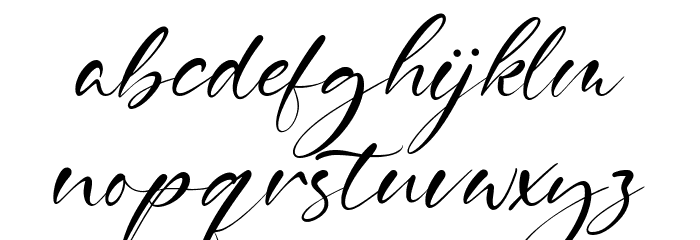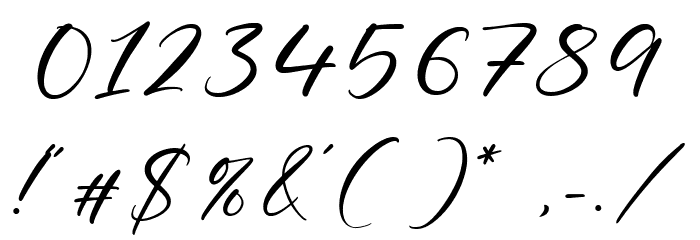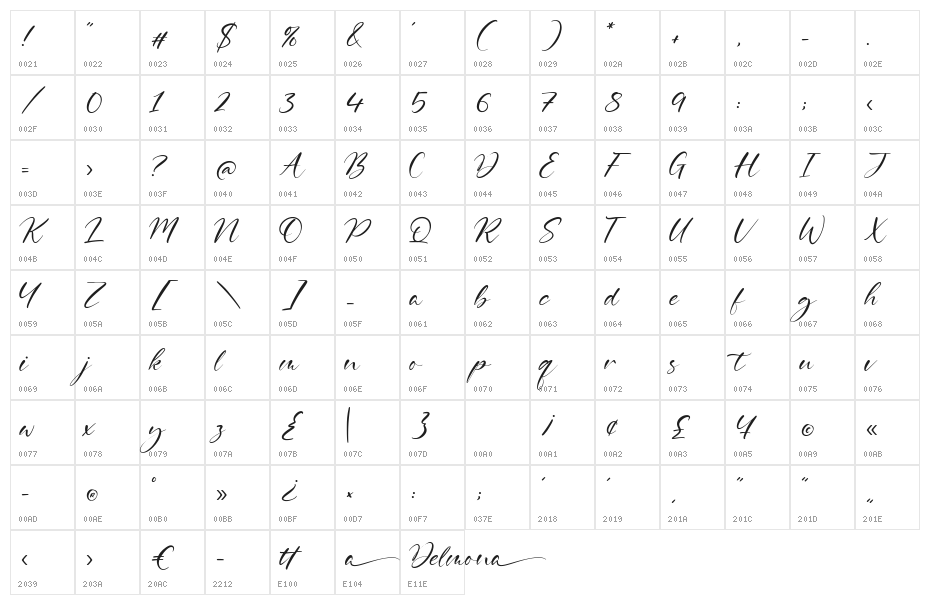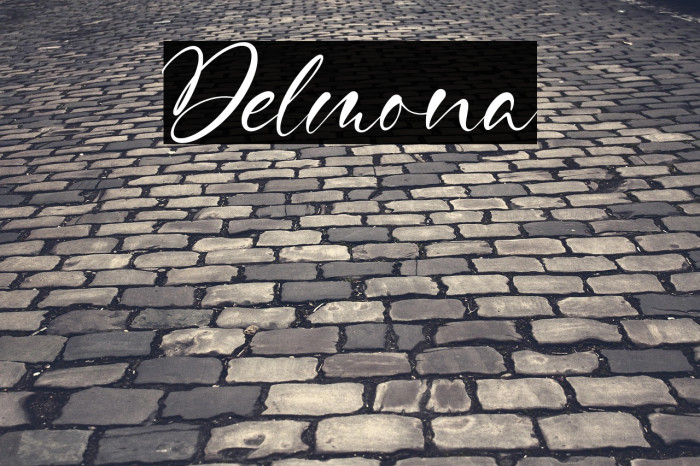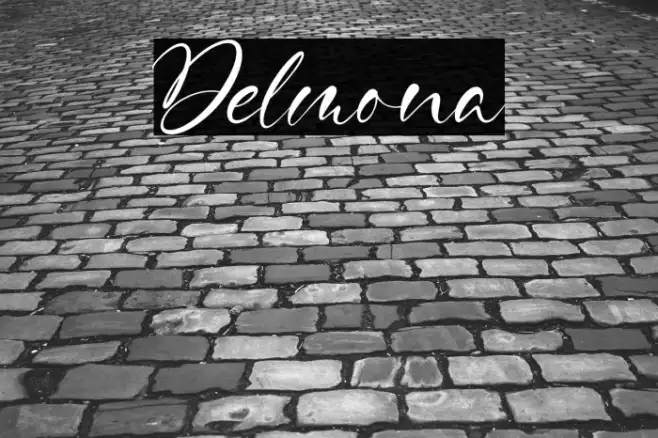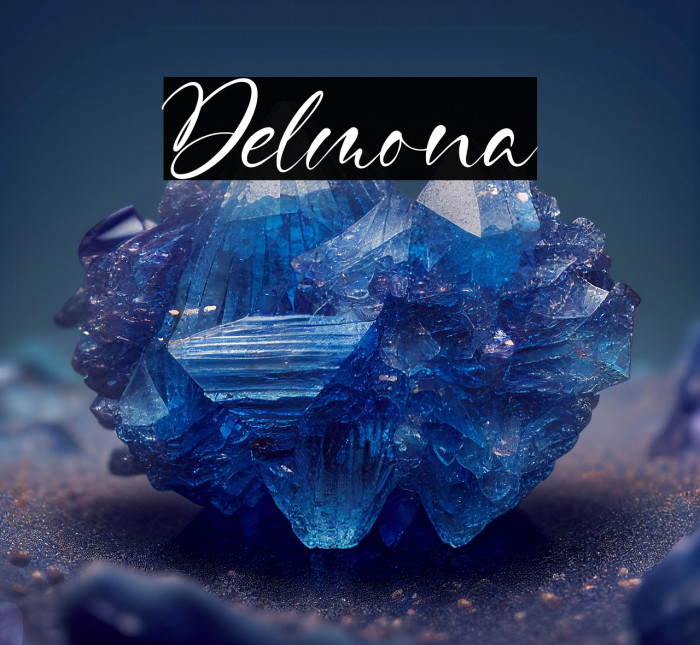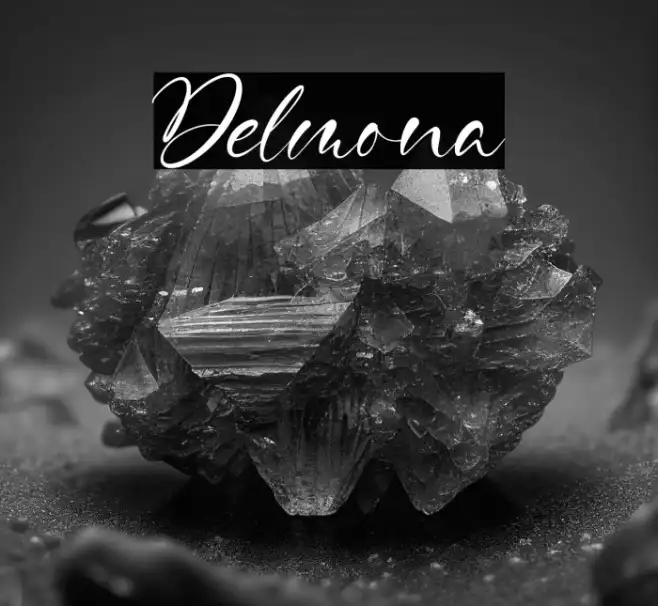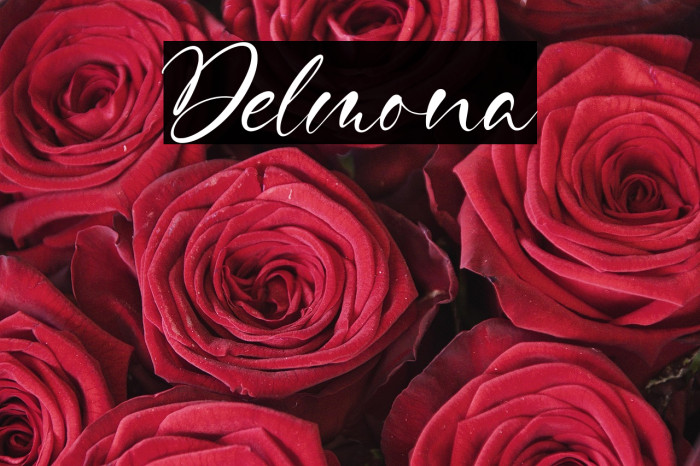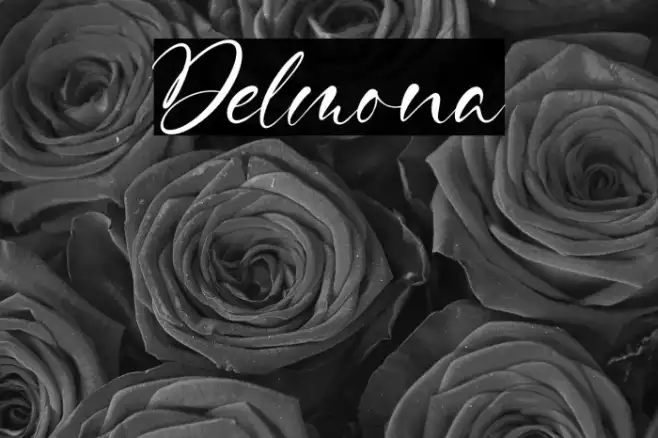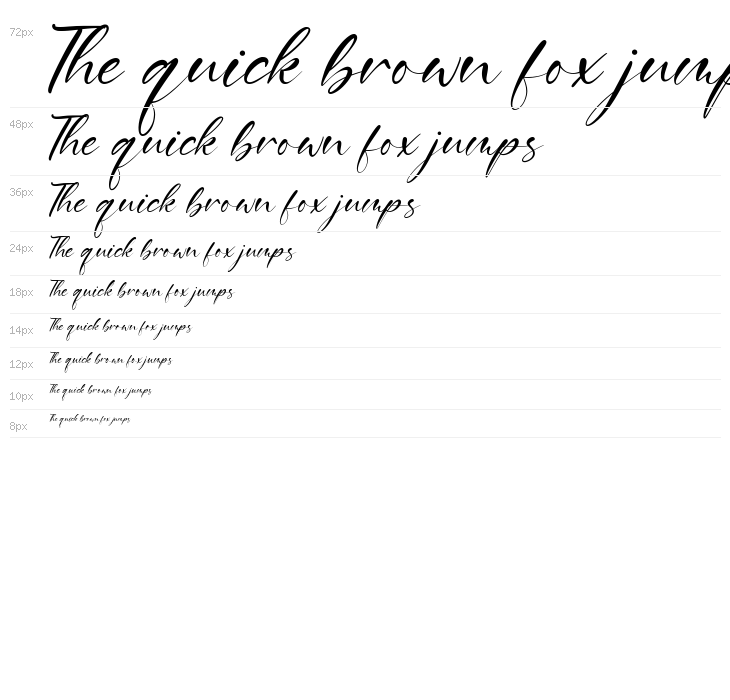
Delmona Font
This elegant script font exudes a sense of sophistication and fluidity, characterized by its flowing, cursive strokes and graceful curves. Each letter is meticulously crafted, with a harmonious balance between thick and thin lines that create a dynamic and visually appealing contrast. The uppercase letters are bold and striking, while the lowercase letters maintain a delicate and refined appearance. The numerals and special characters are seamlessly integrated, maintaining the font's overall aesthetic. This font is perfect for projects that require a touch of elegance and style.
A sophisticated and elegant script font with flowing cursive strokes.
- Proposed Projects: Ideal for wedding invitations, elegant branding, high-end product packaging, and personal stationery.
- Overall Style: Elegant
- Use Case: Logos, Invitations, Branding